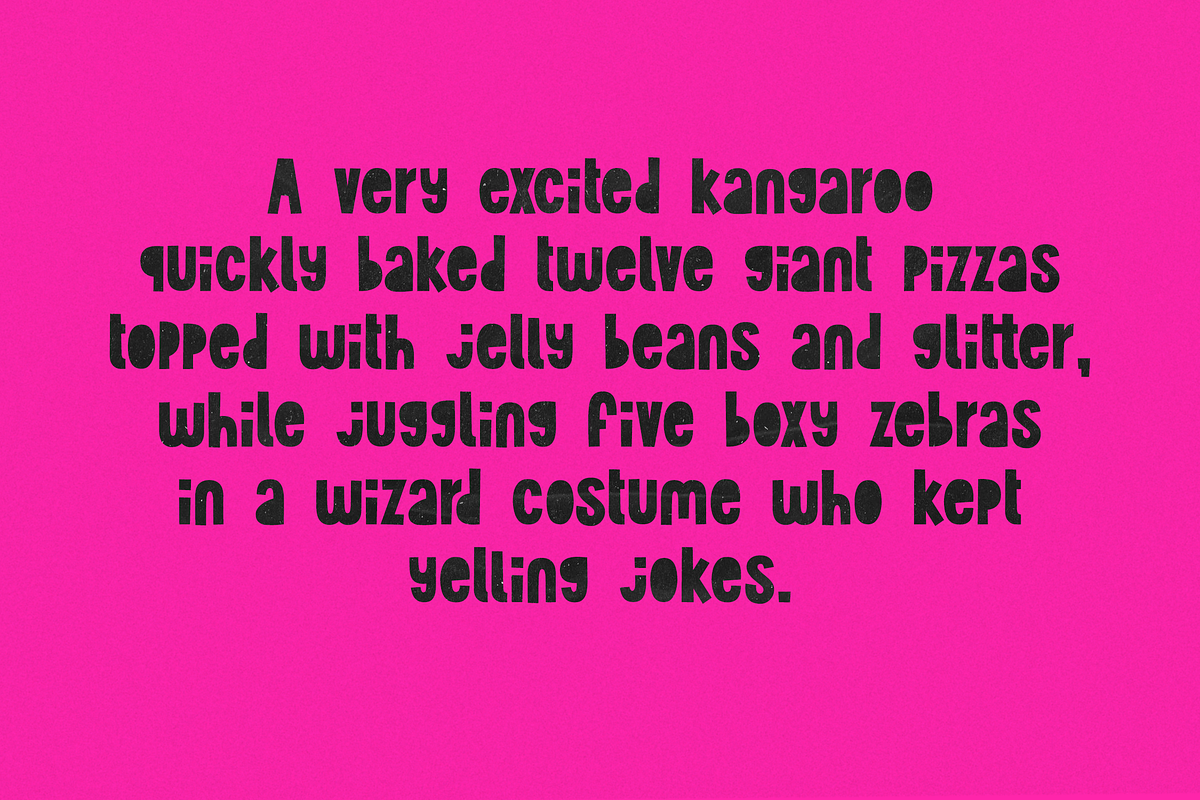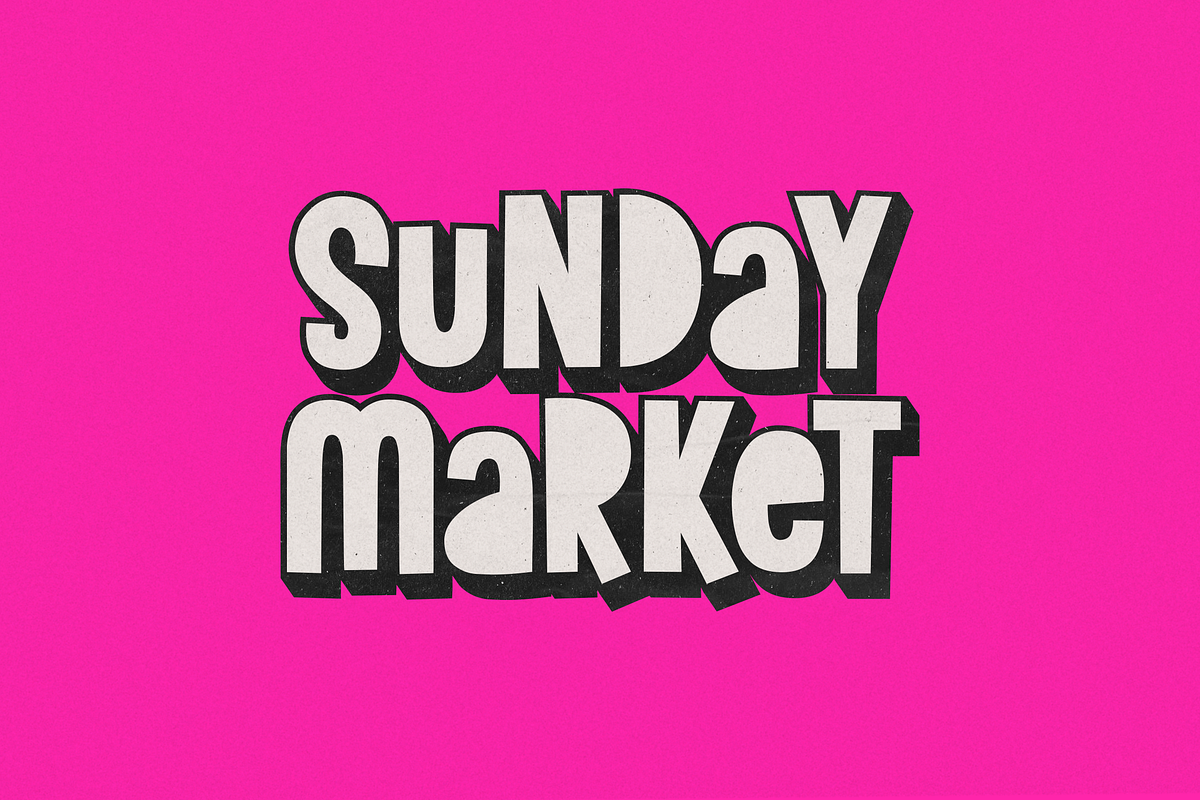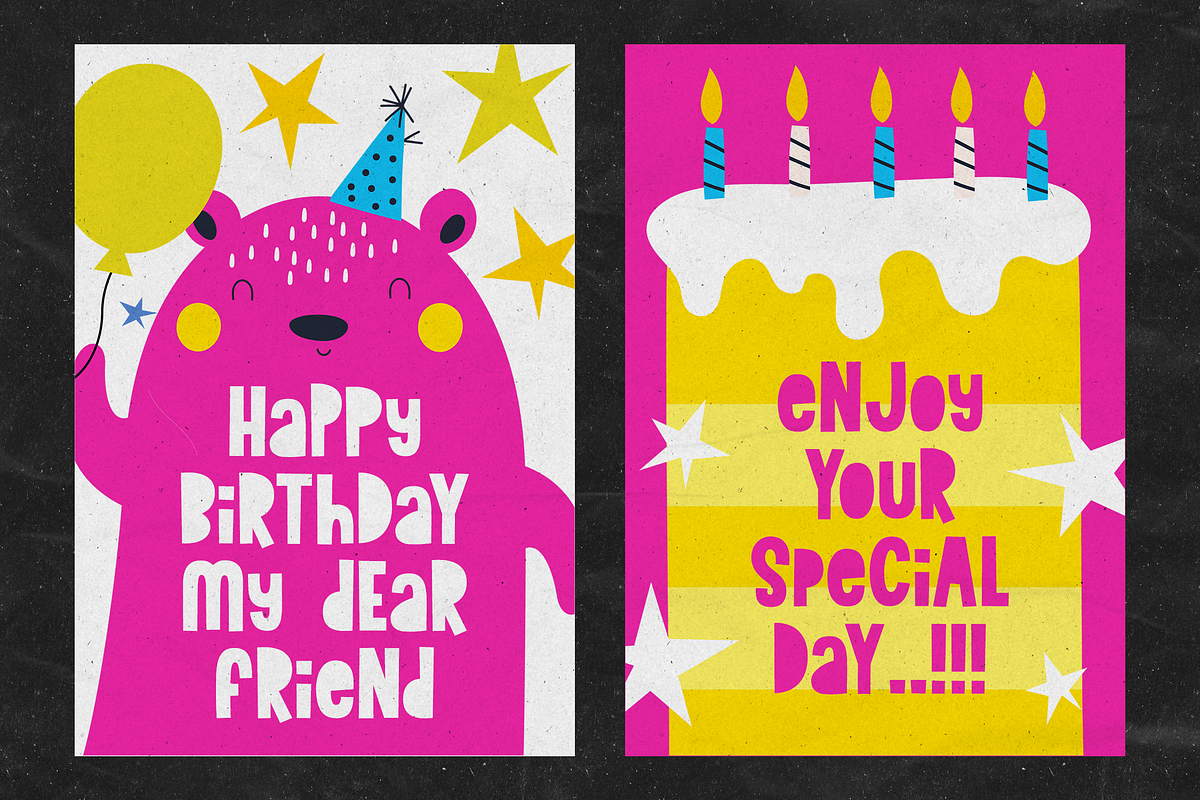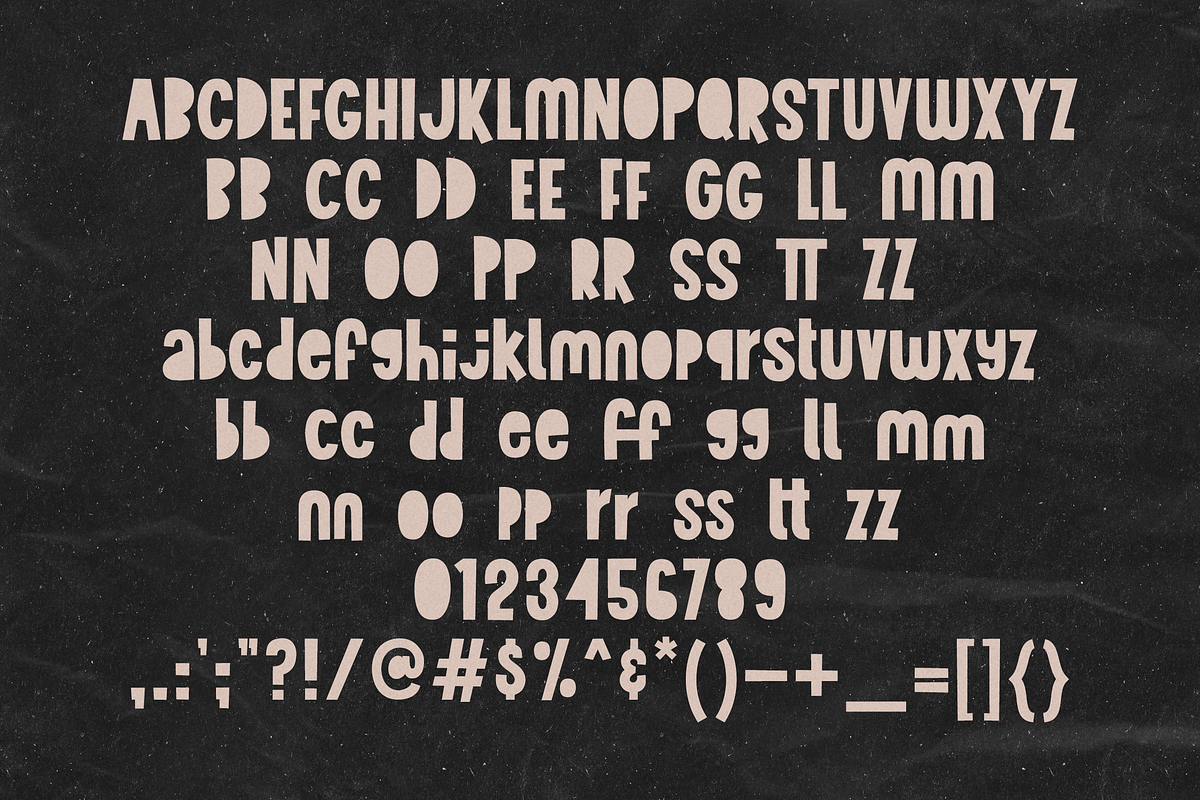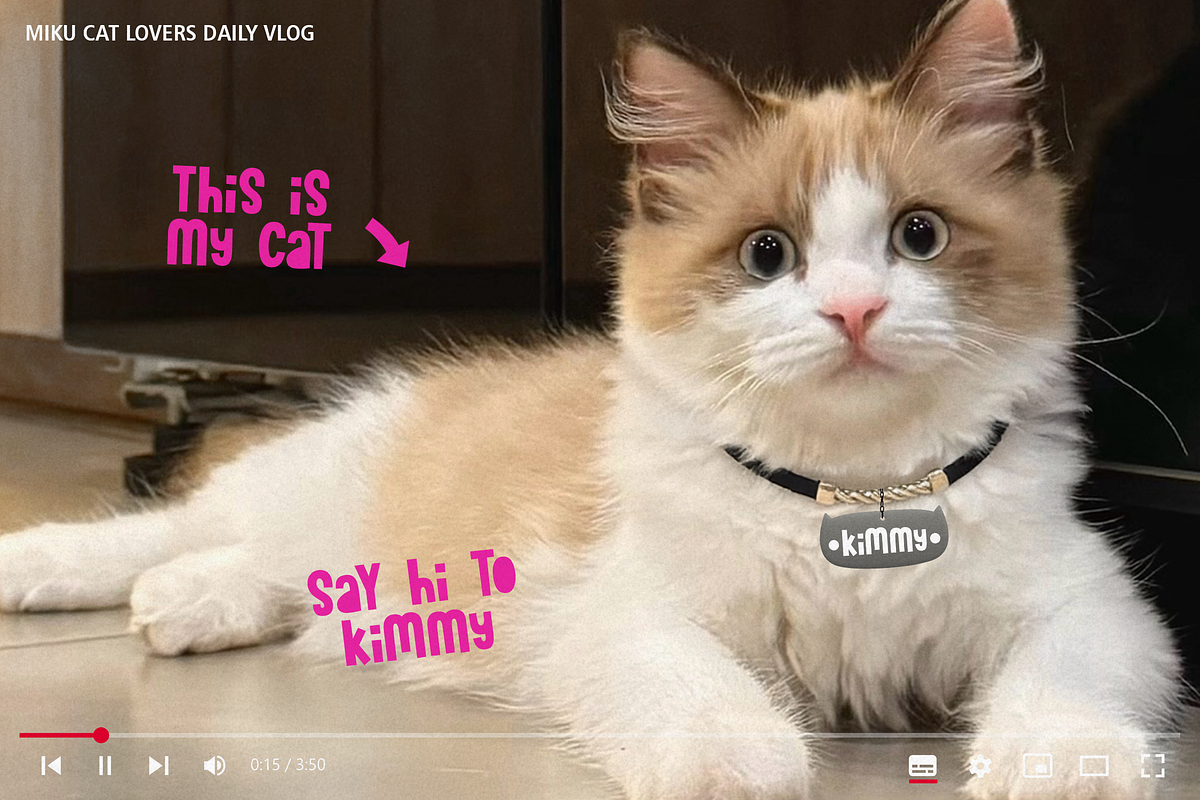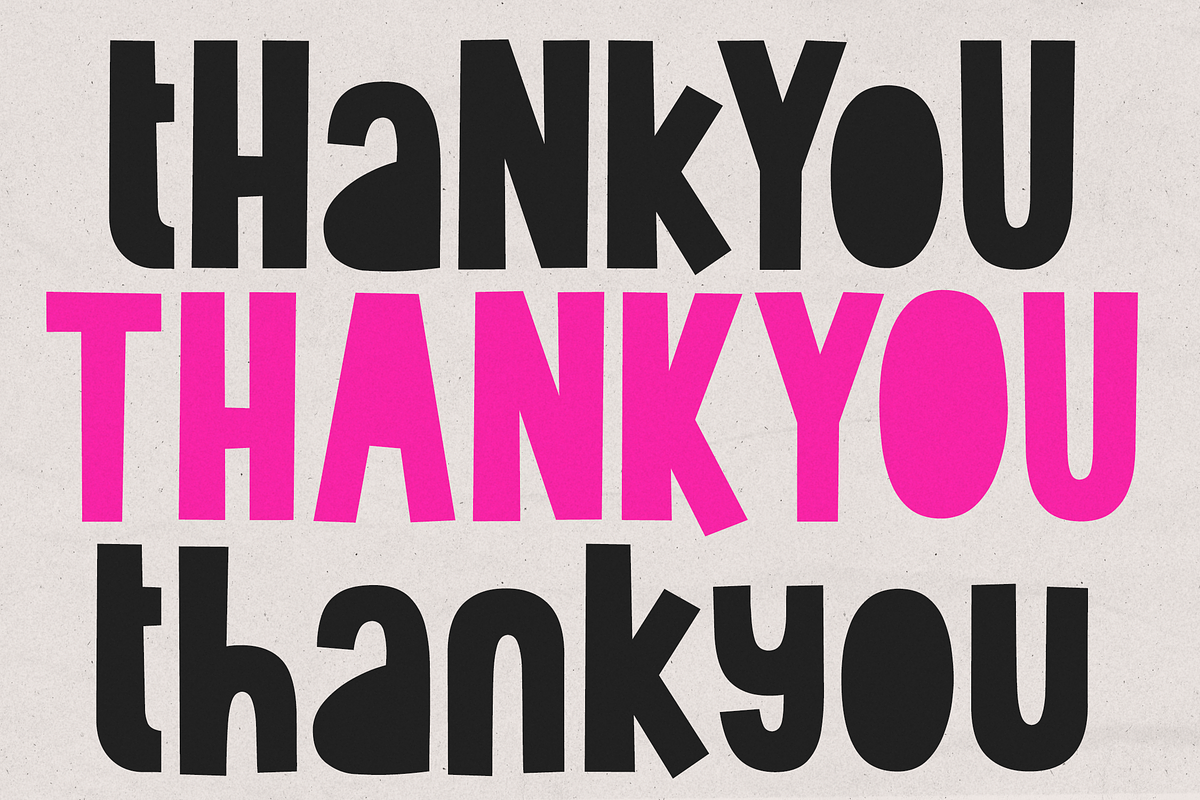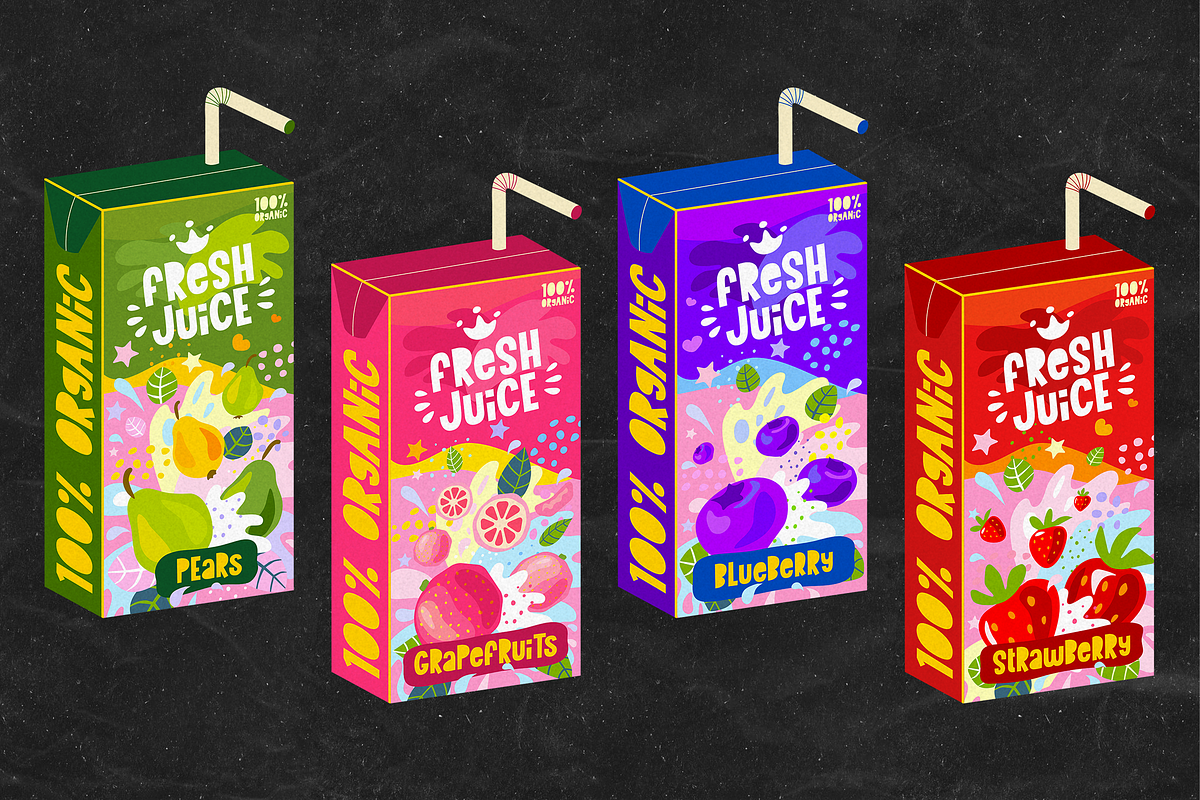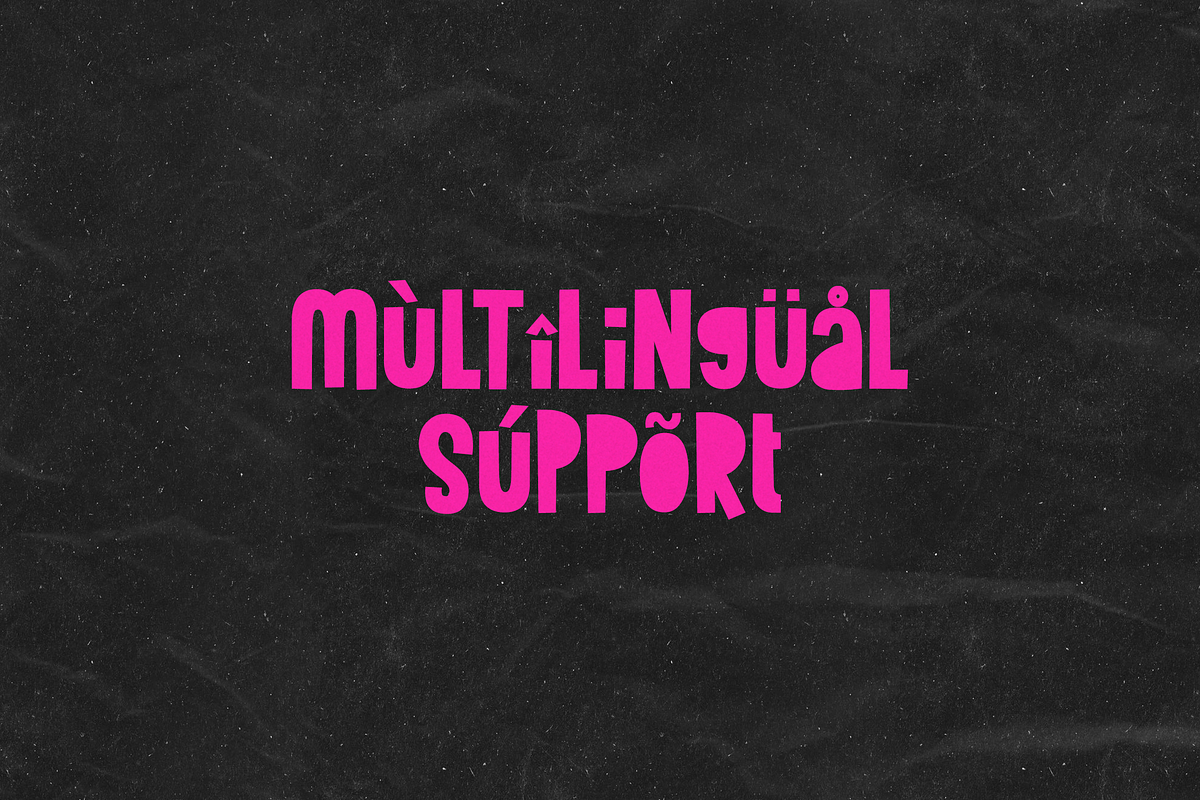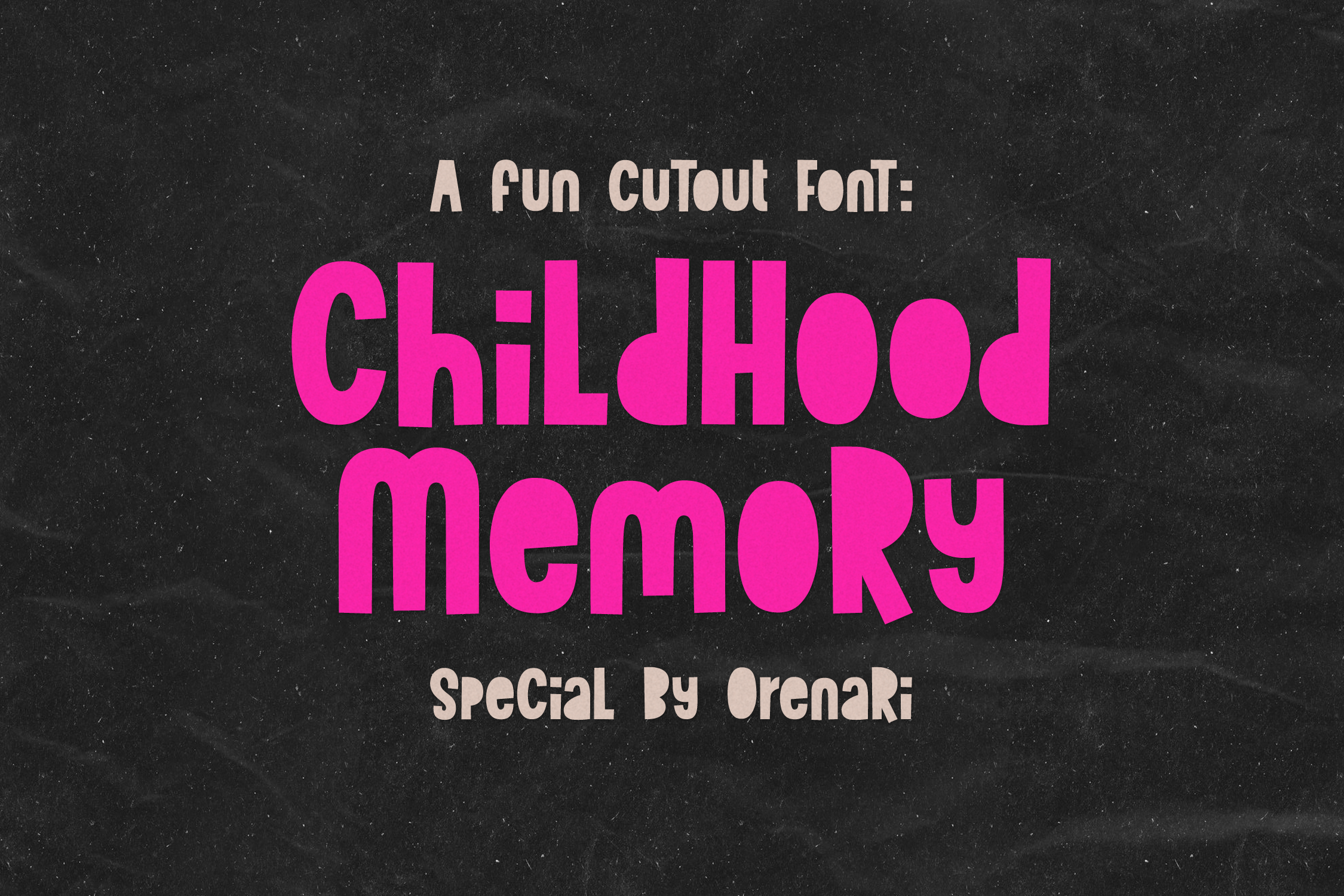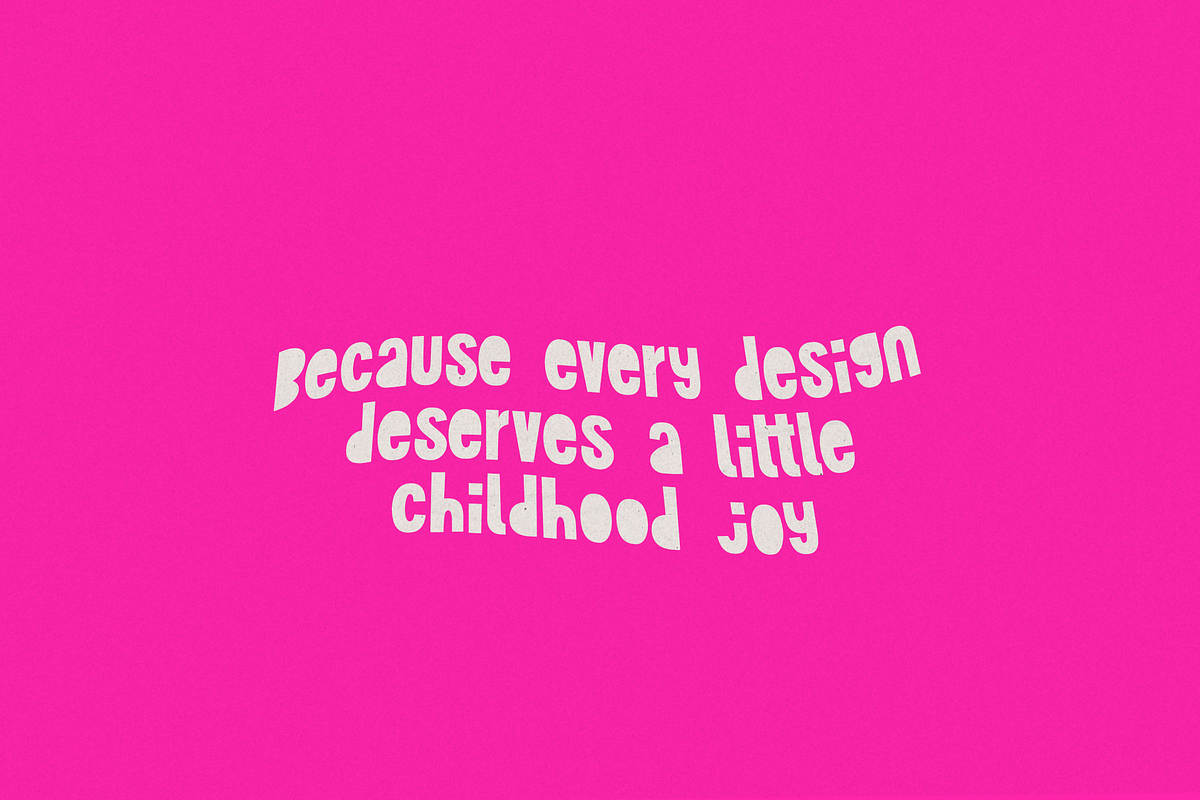
Childhood Memory - Fun Cutout Font
Introducing Childhood Memory – a playful cutout style font bursting with fun and creativity! Inspired by cheerful crafts and colorful childhood moments, this font brings a handmade charm to every letter. Its quirky shapes and bold personality make it perfect for kids’ projects, posters, games, toys, party invitations, and anything that needs a joyful pop.
Whether you're designing for little dreamers or just want to add a spark of fun to your work, Childhood Memory is here to play! ✨